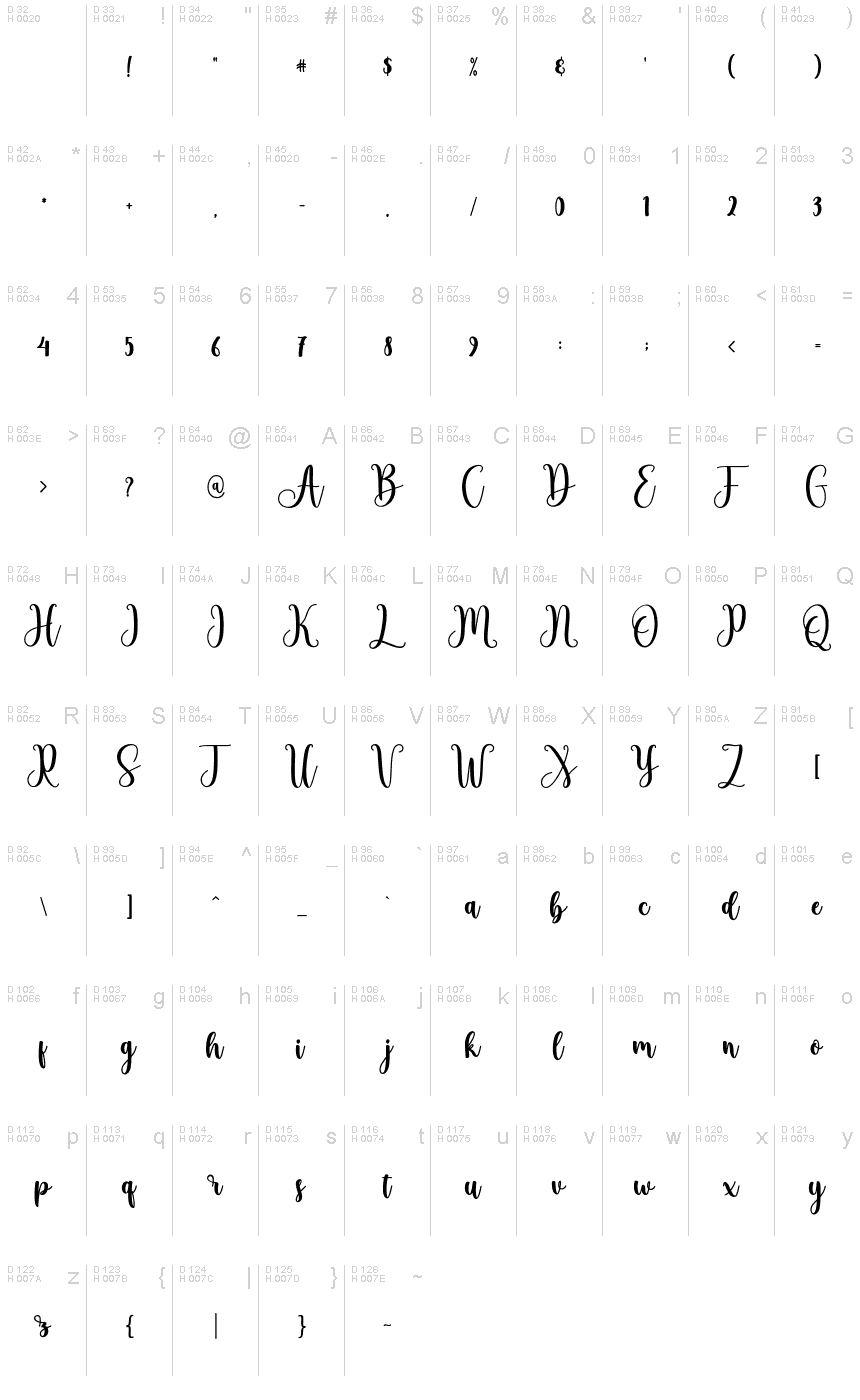
Hemttona Script by Beautypes is a stunning calligraphy font that exudes elegance and sophistication. With its semi-light weight, this font is perfect for various projects such as wedding invitations, branding materials, and social media graphics, adding a touch of refinement to any design. Its flowing strokes mimic the natural movement of handwriting, making it ideal for conveying intimate messages and heartfelt sentiments. Hemttona Script’s graceful curves and intricate details make it a versatile typeface that can be used in both formal and informal settings. Elevate your designs with Hemttona Script’s timeless charm.